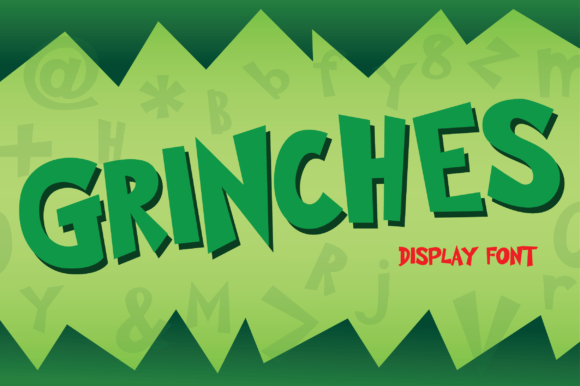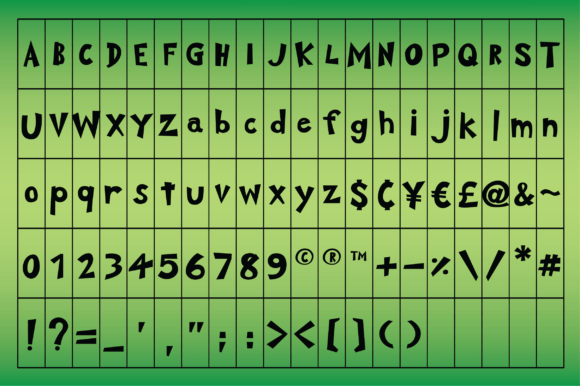
Grinches Font: A Playful Display Font for Cute & Creative Designs!
About the Grinches Font
The Grinches Font offers a perfect balance of form and function for your design needs. Grinches is a fun and quirky display font perfect for use on cheerful topics. Very suitable for children’s themed designs, especially when combined with bright colors.
Grinches excels in headlines, logos, and short, impactful text for children’s products, greeting cards, or playful branding. Its whimsical nature makes it ideal for packaging and posters targeting a younger audience. Avoid using it for body text or UI elements; its playful forms are not legible at smaller sizes or in large blocks of text.
Consider pairing Grinches with a clean sans-serif like Open Sans for readability in supporting text, or a classic serif like Garamond for a sophisticated contrast. For a more playful pairing, a rounded sans-serif such as Gill Sans would also work well.
The font’s core personality is undeniably playful and friendly, yet maintains a level of readability that prevents it from becoming illegible or overwhelming. It’s best suited for projects needing a lighthearted, approachable, and attention-grabbing visual element.